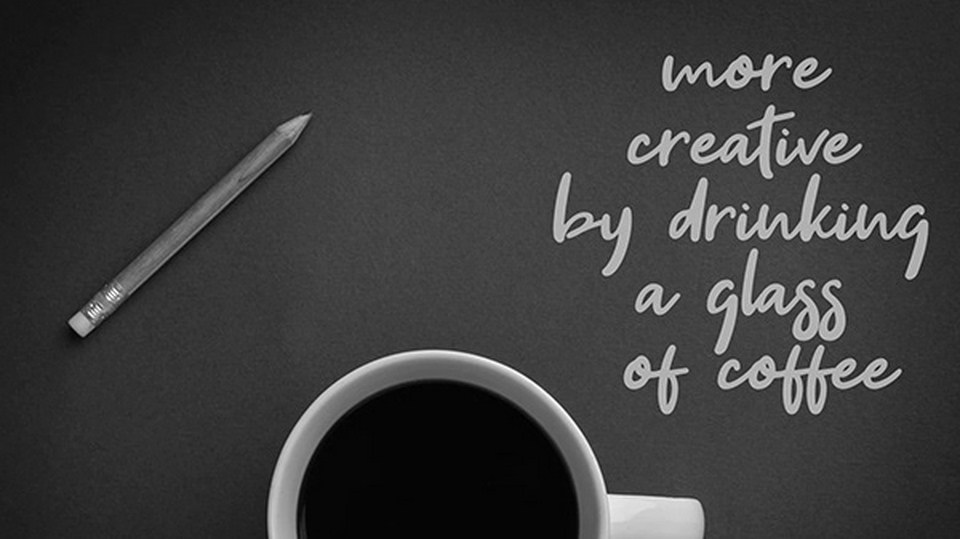
Get Show Script is a casual signature style handwritten font. It contains uppercase and lowercase letters, numbers and symbols.
Get Show Script font is great for personal branding, photography watermarks, social media, quotes, handcrafted designs and much more.